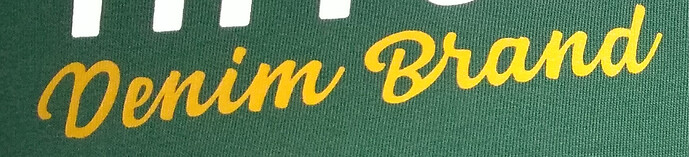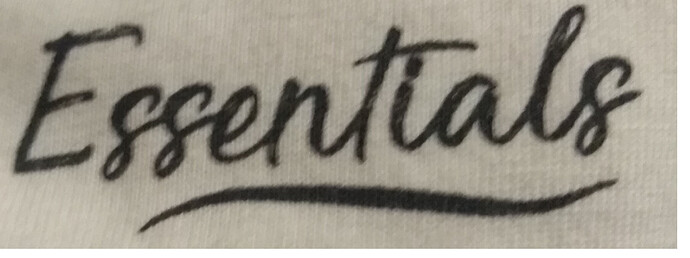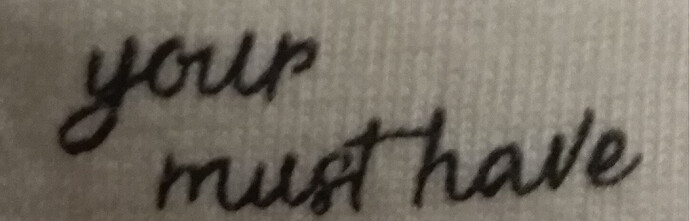
Hi everyone, can you please help me identify these fonts?
The first one, “Denim Brand”, seems to be: https://www.creativefabrica.com/product/maldiva-script-2/
The second one, “Essentials”, is probably this one https://www.dafont.com/saturday-be-like-madness.font?text=Essentials with a few modifications.
Yup, I was suspecting that the first font would be “Maldiva” even though the “r” seems slightly different.
The second one was more elusive, but thanks for the suggestion! It does seem that the font was modified at some point…